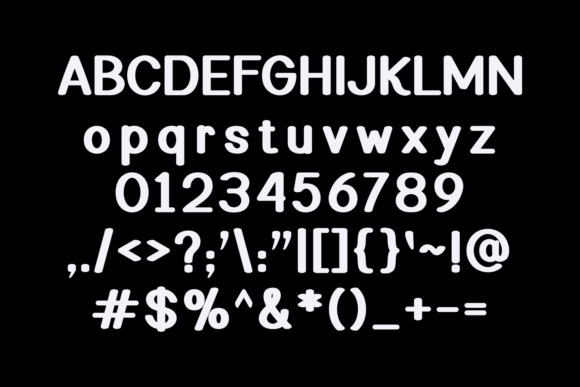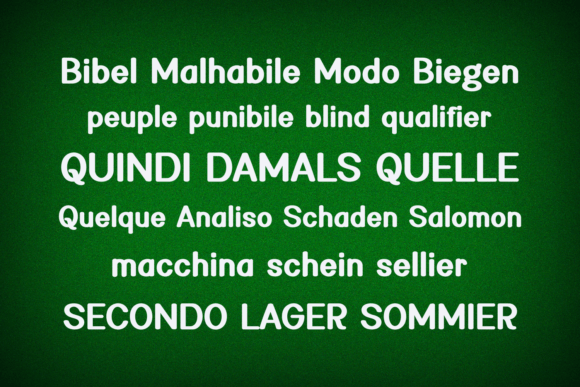
Introduction to Regishort Font
Have you ever stared at a blank canvas, trying to bring a creative project to life, but struggling to find the perfect font to match your vision? That’s where the Regishort Font comes in – a fun and cool sans serif font that’s sure to elevate your design to the next level.
With its clean lines and modern aesthetic, Regishort Font is the perfect addition to any creative project, whether you’re designing a logo, creating a social media graphic, or building a website with a transparent background. This high-quality font is free to download, making it an invaluable resource for designers looking to add a professional touch to their work without breaking the bank.
Whether you’re a seasoned designer or just starting out, Regishort Font is a valuable asset to have in your design toolkit. Its versatility and modern style make it an excellent choice for a wide range of projects, and its free download means you can experiment with it without any risk or commitment. So why wait? Add the Regishort Font to your design resources today and discover a whole new world of creative possibilities!
Key Features of Regishort Font
- High-quality design: Regishort Font is a premium design resource that offers a unique and stylish look for your creative project.
- Unique characteristics: The font features a distinctive short and bold design, making it perfect for headings, titles, and other design elements where a bold statement is needed.
Honest Review: Regishort Font
As a designer, I’m always on the lookout for high-quality fonts that can elevate my creative projects. Recently, I came across the Regishort Font, and I’m excited to share my thoughts on this free download.
Here’s what I like about the Regishort Font:
- ✨ Elegant and modern design: The Regishort Font has a sleek and sophisticated look that’s perfect for a variety of creative projects.
- ✨ Highly legible: The font is easy to read, even at smaller sizes, making it ideal for body text or captions.
- ✨ Transparent background: The font’s transparent background allows for seamless integration with images and other design elements.
However, I do have some limitations to note:
- ⚠️ Limited language support: The Regishort Font only supports a few languages, which might be a concern for designers working on international projects.
- ⚠️ No bold or italic variants: While the font is highly legible, it would be great to have bold or italic variants for added emphasis.
Overall, I think the Regishort Font is a solid addition to any designer’s toolkit. While it has some limitations, its elegant design and high quality make it a great choice for many creative projects. If you’re looking for a free, high-quality font, the Regishort Font is definitely worth checking out.
The Regishort Font is commonly used for designing logos, social media graphics, and marketing materials. Its high quality and transparent background make it perfect for creating visually appealing designs that stand out from the crowd.